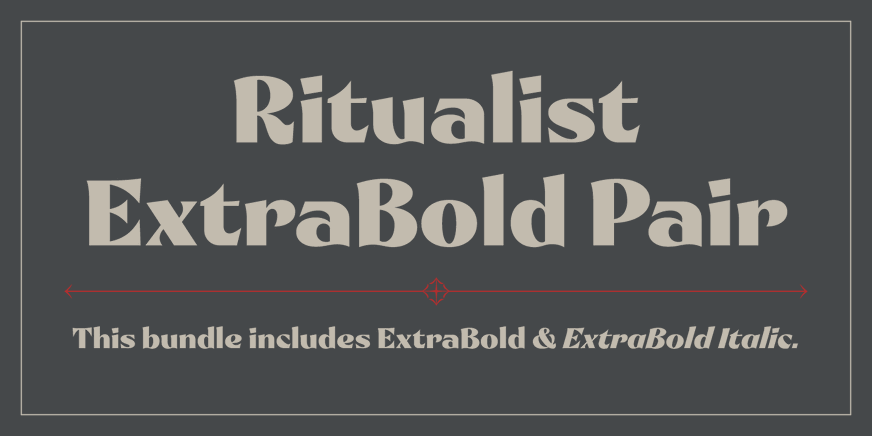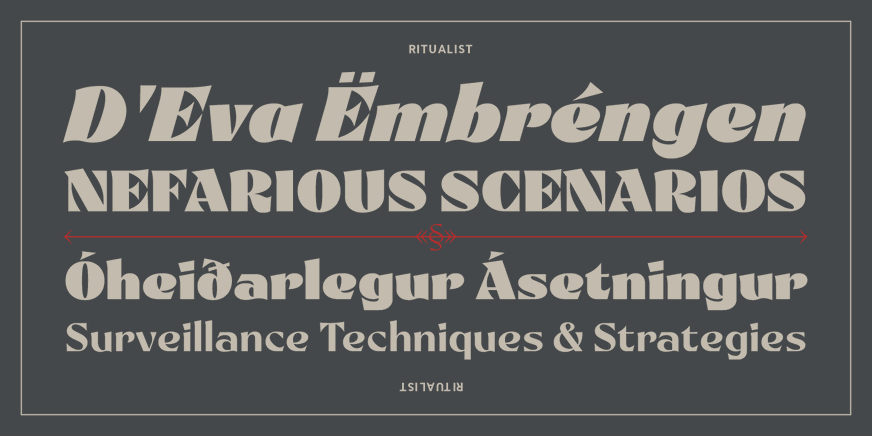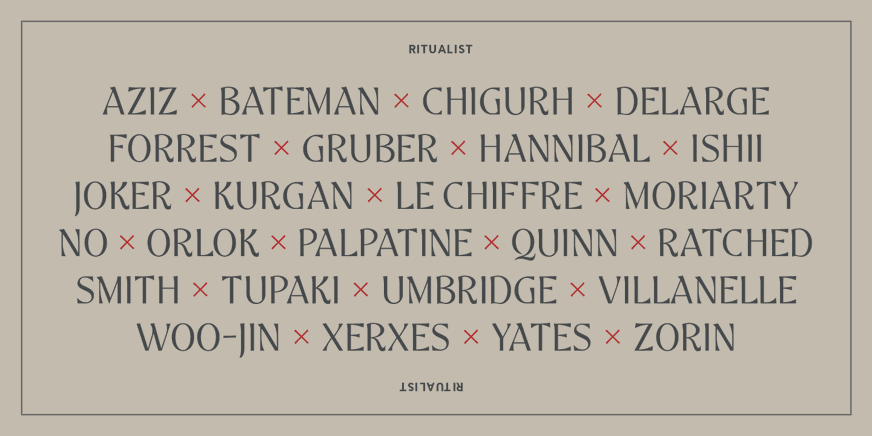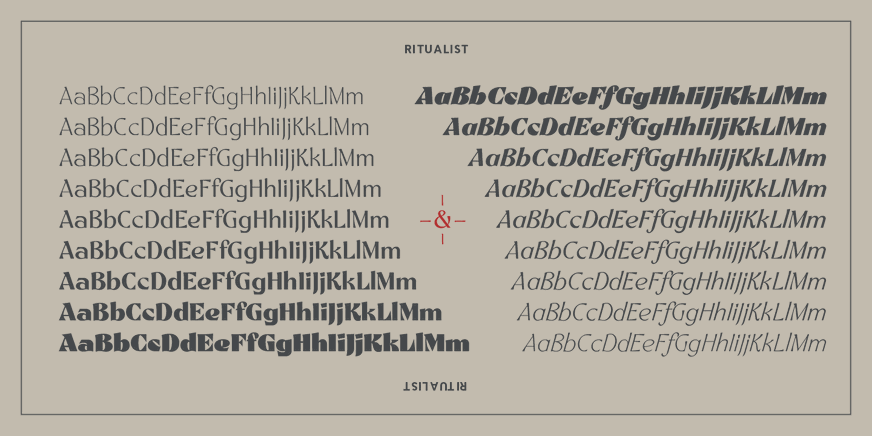
Ritualist ExtraBold Pair
This typeface is inspired by high-contrast wedge serif designs, like De Vinne, but viewed through a macabre lens. The elegant, beguiling design occupies a shadowy space between beauty and darkness, and is defined by its infinitely sharp points and dangerous curves that accelerate like the edge of a blade.
The family comprises 18 styles (9 weights plus italics), and a Variable version. With more than 1,000 glyphs, Ritualist supports 259 languages worldwide. Make Ritualist your secret weapon when vibes of intrigue, darker desires, and mystical encounters are needed. Set it large for headlines and preserve the mood with middle range of weights for subheads and brief body copy.